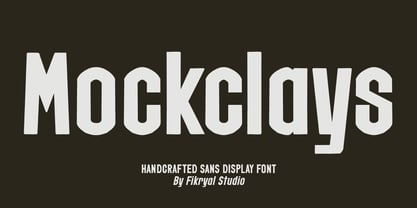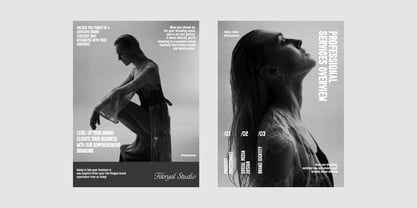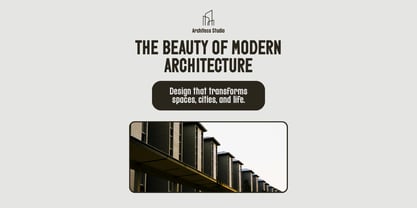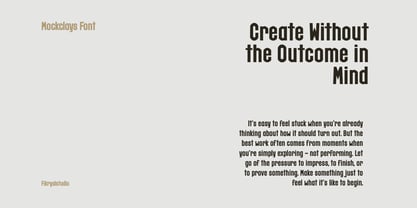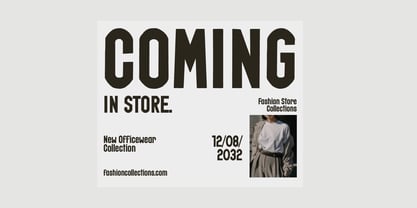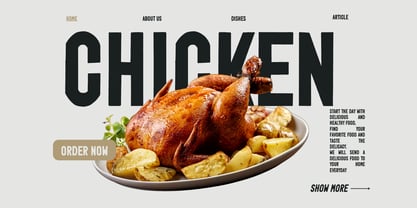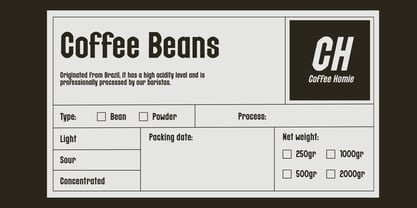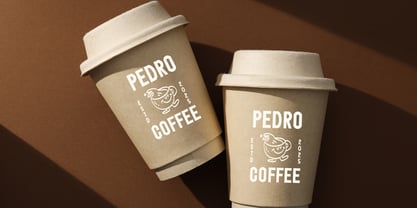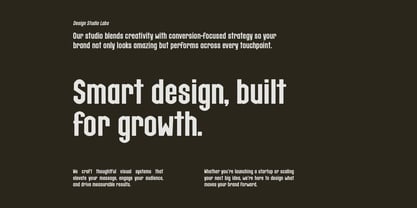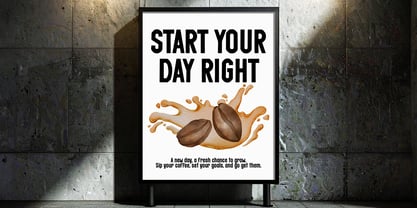
Mockclays
by Fikryal
The Mockclays Font Family was designed by Muhammad Fikry and published by Fikryal. Mockclays contains 2 styles and family package options. More about this family
Mockclays is a handcrafted sans display font designed to deliver a bold, modern, and crafted character. Inspired by hand-shaped letterforms and solid display typography, Mockclays brings a strong visual presence while staying clean and highly readable. This font comes with both uppercase and lowercase letters, allowing more flexibility for branding and layout designs. Equipped with two styles — Regular and Italic, Mockclays gives you dynamic typographic control for emphasis, contrast, and expressive layouts. With its confident structure and handcrafted feel, Mockclays is perfect for designers who want a font that stands out without losing professionalism. It works exceptionally well for branding, packaging, logos, posters, headlines, apparel, and creative projects that require impact and character. Whether you’re creating modern brand identities or bold visual statements, Mockclays delivers strength, clarity, and handcrafted charm in one versatile display typeface. ✨ Font Features Uppercase & Lowercase letters, Numbers & punctuation Multilingual support Clean yet handcrafted display style Easy to use for digital & print projects 🎯 Perfect For Branding & logo design Packaging design Posters & headlines Apparel & merchandise Social media graphics Editorial & advertising designs 📦 What You Get Mockclays Regular Mockclays Italic Thank you